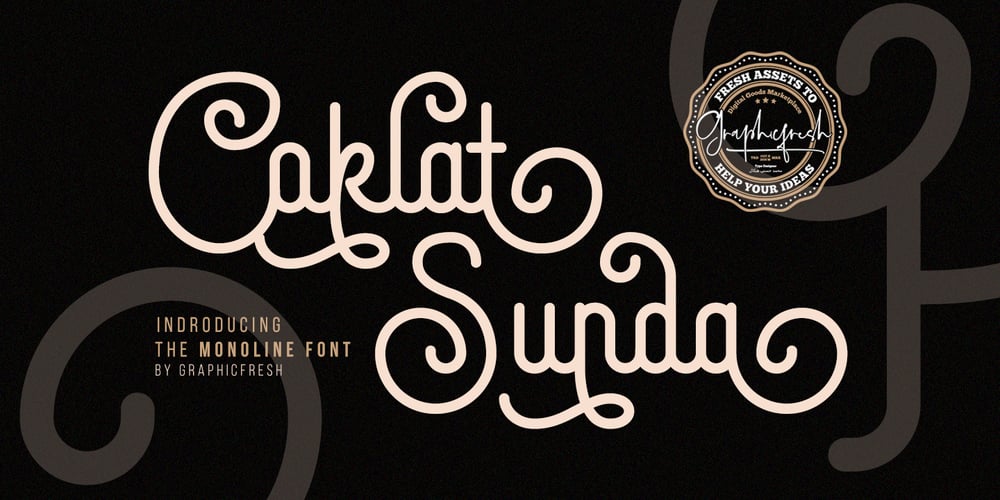
Coklat Sunda Font Family was designed by Muhammad Husni Haikal and published by Graphicfresh. Coklat Sunda contains 2 styles and family package options. Coklat Sunda is a monoline script family including Regular and Slant versions . It’s perfect for logos, name card, magazine layouts, invitations, headers, or even large-scale artwork.